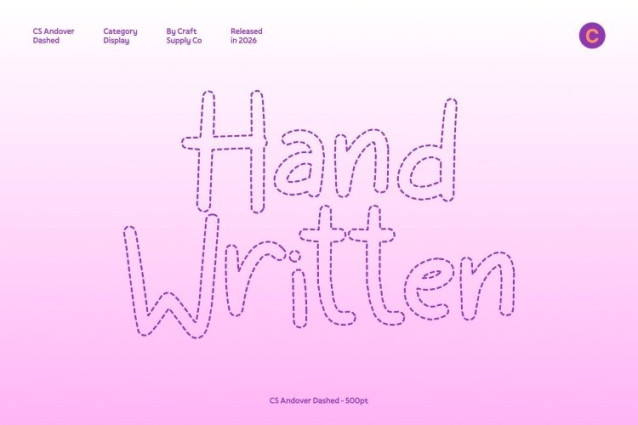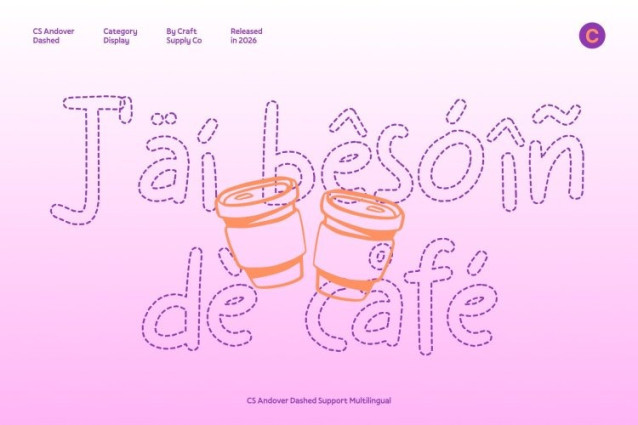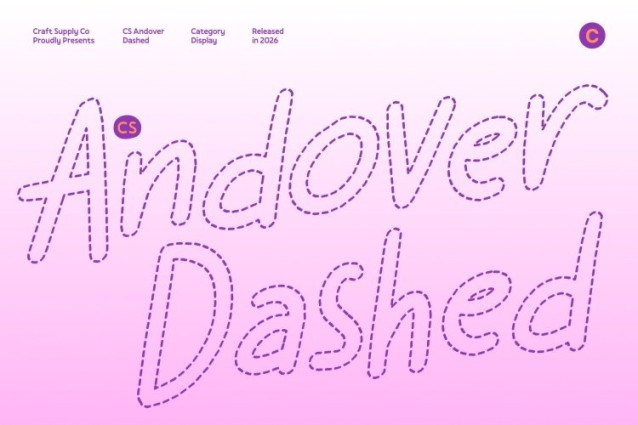
CS Andover Dashed Font
CS Andover Dashed Font – The rounded handwritten–sans shapes give the font a soft and inviting presence. The dashed construction adds a sense of movement and rhythm, enhancing its organic flow while keeping excellent readability. This balance makes the font visually engaging without overwhelming the message.
Energetic Style for Dynamic Designs
Bursting with playful energy, this is perfect for projects that need excitement and positivity. Its joyful personality shines in greeting cards, lifestyle graphics, social media content, and casual branding, helping designs feel lively and expressive.
Perfect for Youthful and Casual Projects
From children’s branding and cheerful invitations to fun packaging and creative campaigns, this font adds a bright and approachable touch. Its playful dashed strokes ensure every design feels personal, engaging, and full of happy energy.